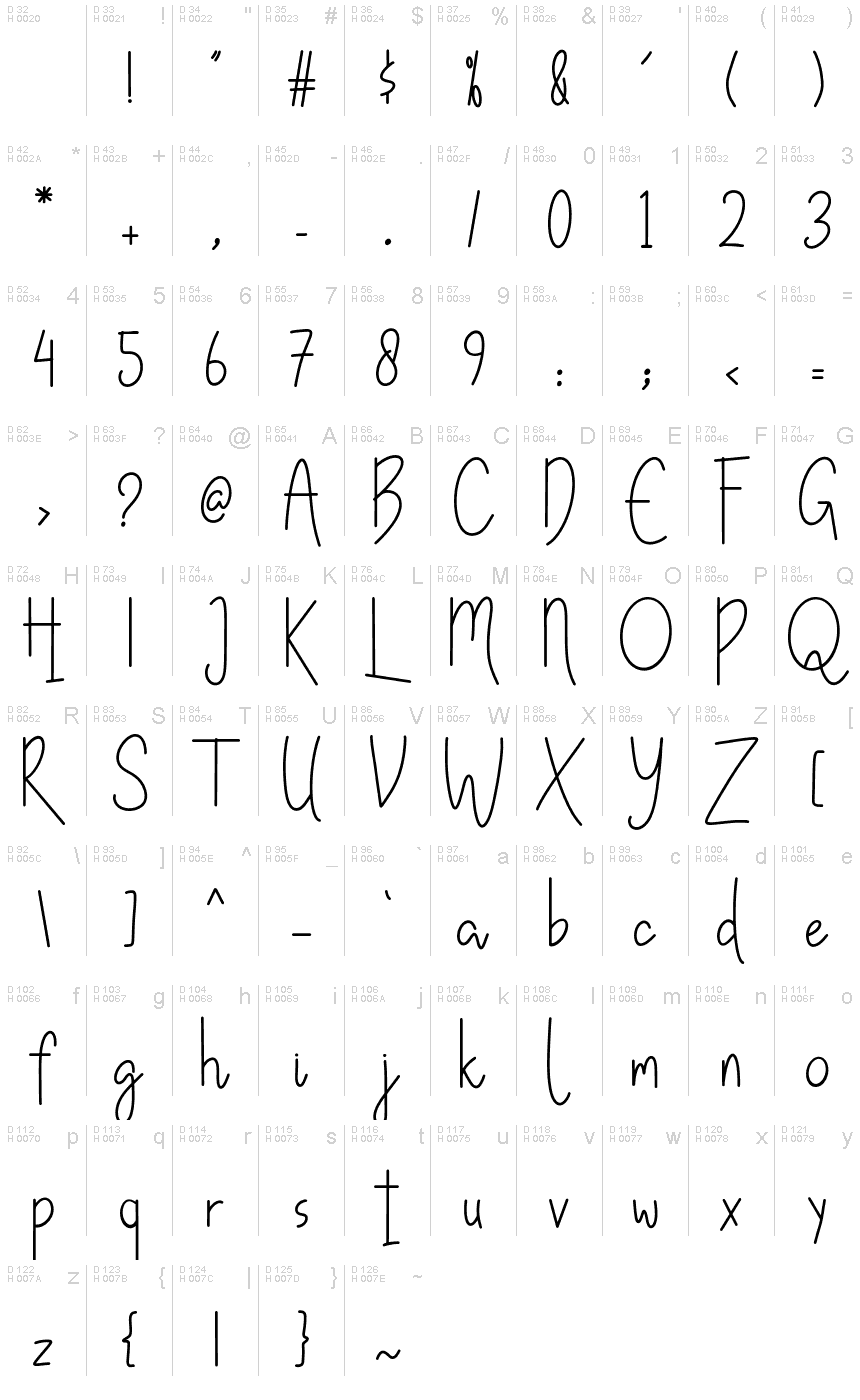
Ruglhe
Ruglhe, designed by Gly Fais, is a captivating handwritten font that is perfect for creative projects in need of a whimsical touch. With its extra-light weight and condensed width, this font is ideal for minimalistic designs that require an elegant and airy feel. From wedding invitations to social media graphics, Ruglhe brings a unique charm to any project. Its delicate strokes and natural flow make it suitable for everything from logos to branding materials. Whether you're designing a book cover or creating a website header, Ruglhe's playful yet sophisticated style will elevate your project to the next level.